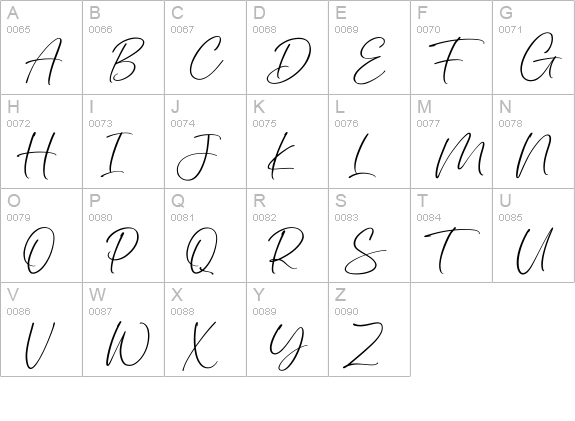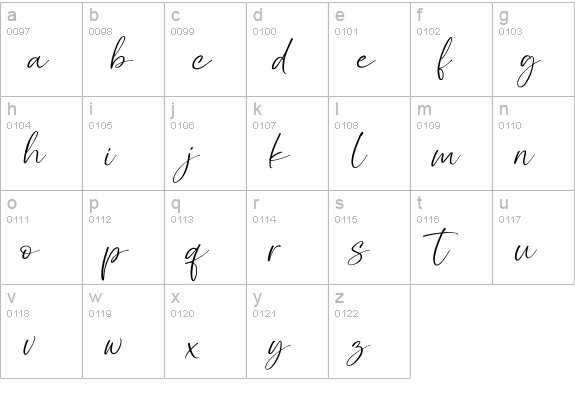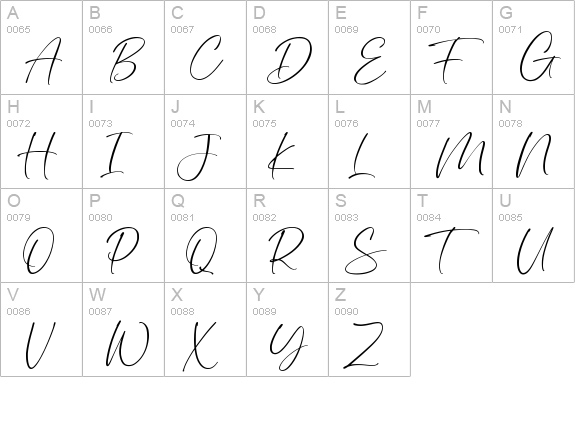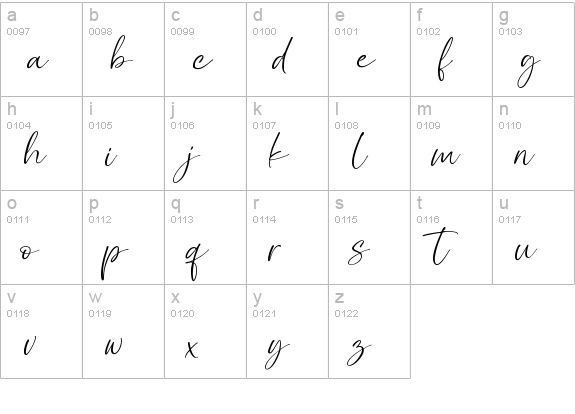
Introducing the captivating and versatile Jellovy Switch Font! This unique typeface exudes a perfect balance of elegance and playfulness, making it a standout choice for a wide range of design projects. With its eye-catching letterforms and stylish curves, Jellovy Switch Font adds a touch of sophistication to any design it graces.
What sets Jellovy Switch Font apart is its seamless ability to seamlessly switch between different styles, offering endless possibilities for creative experimentation. Whether you're looking to create a modern logo, stylish branding, or eye-catching posters, this font has got you covered.